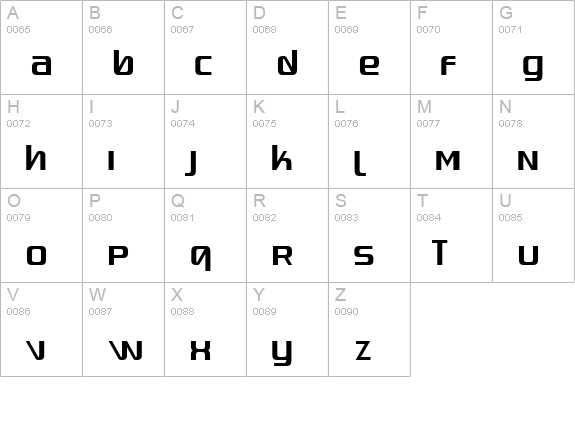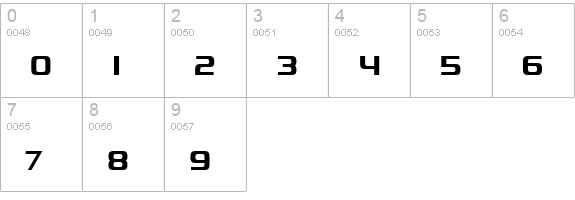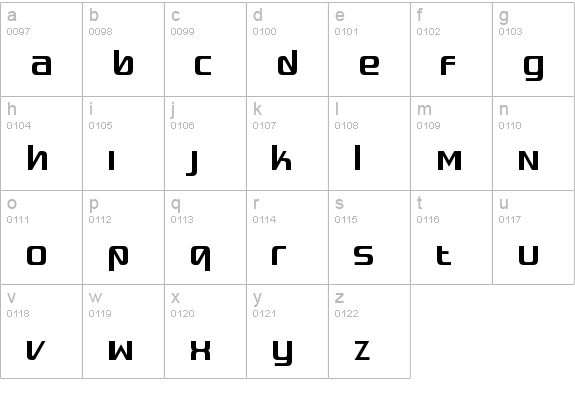
Quadaptor Font Details
Introducing Quadaptor font, a sleek and modern typeface that will take your design projects to new heights. With its sharp edges and clean lines, Quadaptor adds a touch of sophistication and professionalism to any text. Whether you're creating a logo, designing a website, or working on a print project, this versatile font is sure to make a lasting impression. What sets Quadaptor font apart is not only its striking design, but also its accessibility. We believe that great design should be available to everyone, which is why we are thrilled to offer Quadaptor font for free! That's right, you can download this incredible font without spending a dime. Simply head over to FontsMarket.com and discover the endless possibilities that Quadaptor font has to offer. With its wide range of weights and styles, Quadaptor font is perfect for any creative endeavor. From bold headlines to elegant body text, this font can adapt to any design need. Its legibility makes it ideal for both digital and print media, ensuring your message is clear and impactful. But don't just take our word for it – see for yourself why Quadaptor font is a game-changer. Download it for free today at FontsMarket.com and unlock a world of design possibilities. Whether you're a professional designer or a passionate hobbyist, Quadaptor font is the perfect addition to your font library. Don't miss out on this incredible opportunity to elevate your designs with a font that is both stylish and free!